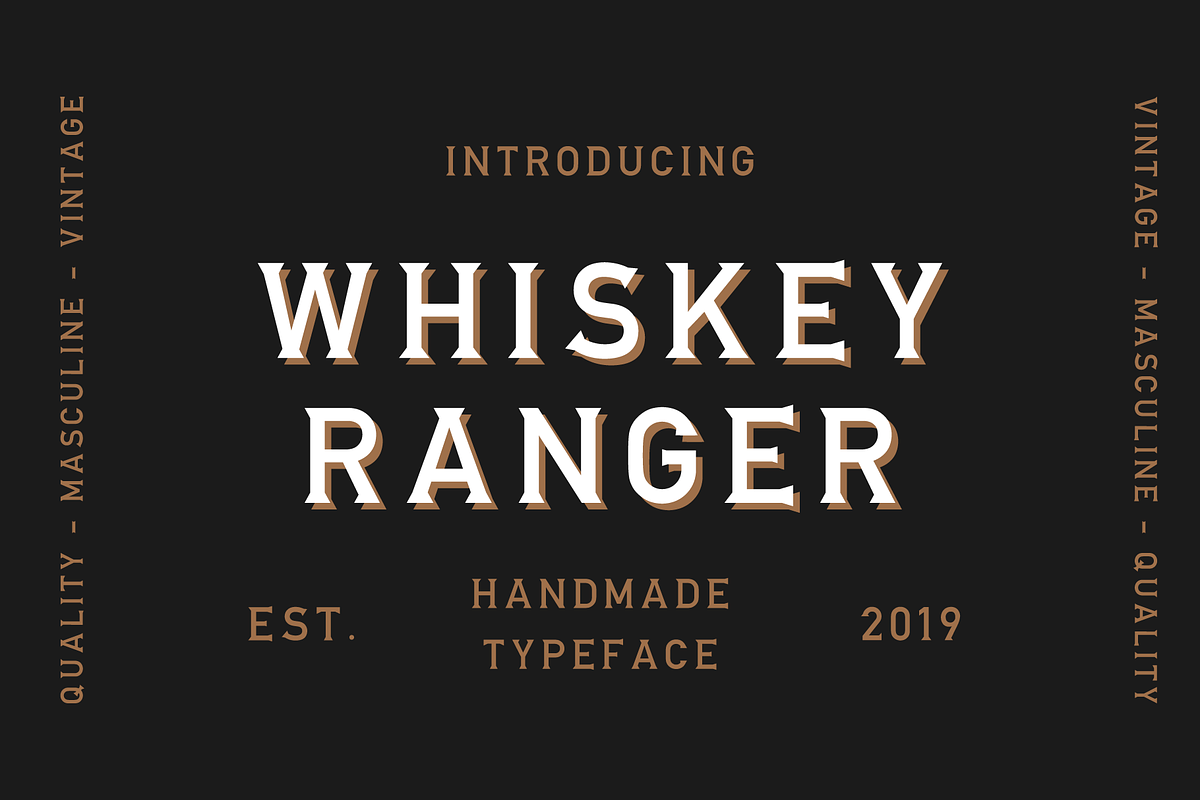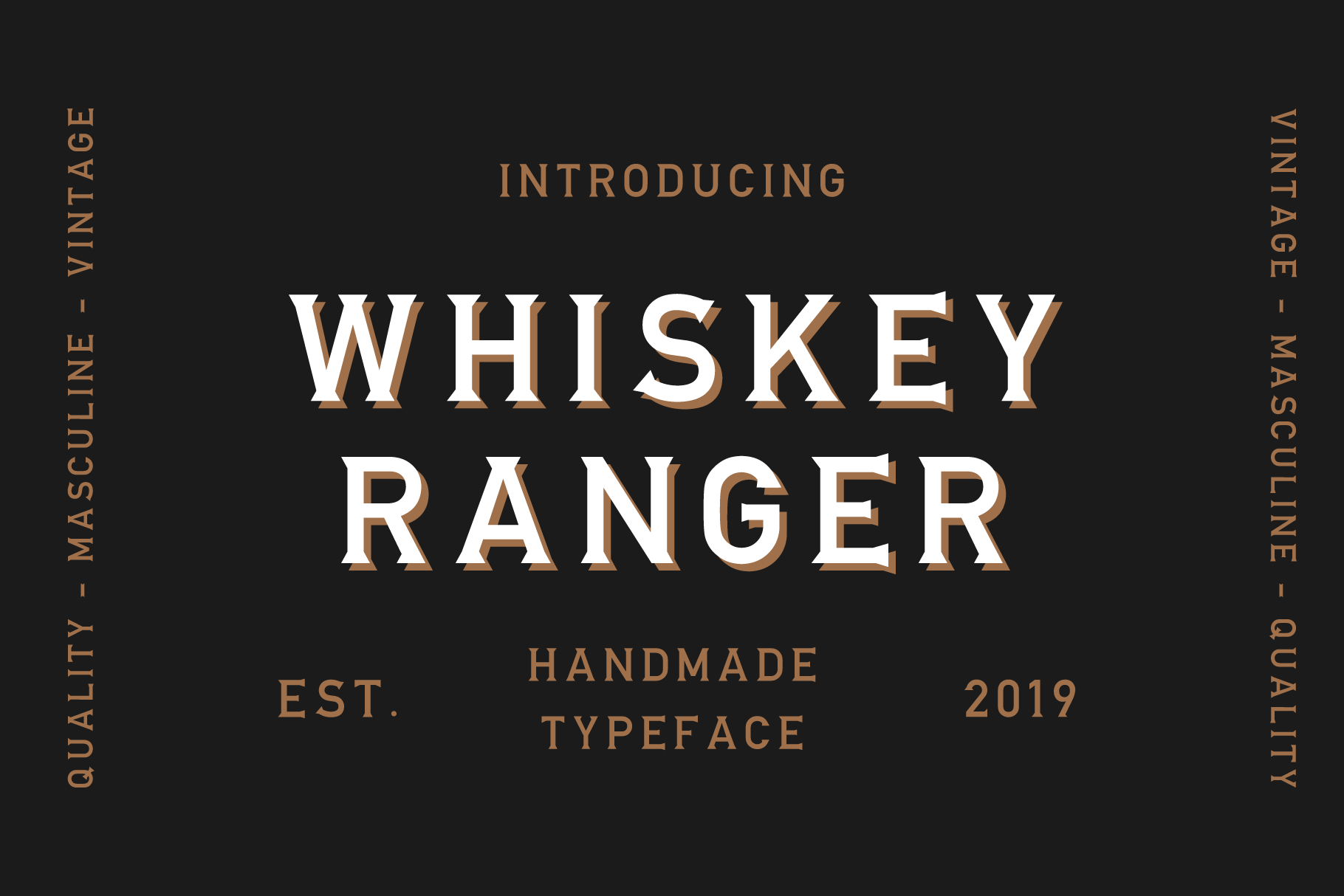
Whiskey Ranger -Vintage Font Family
WHISKEY RANGER
A masculine vintage display font with a modern flair. This nostalgic font is super fun to work with and is perfect for logos and designers but really works well for all purposes.
THIS ENTIRE FONT IS CAPITALIZED
- Capital Characters
- Special Characters